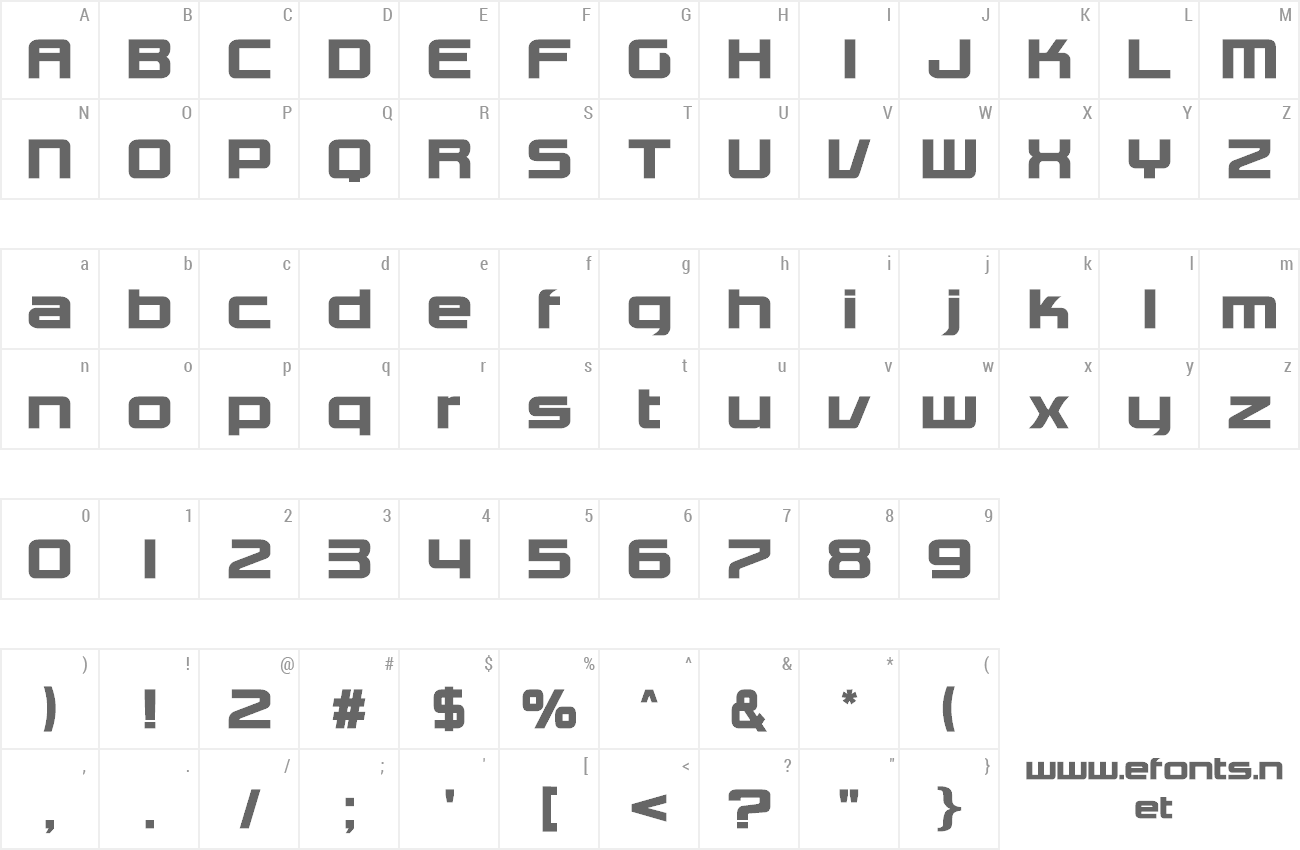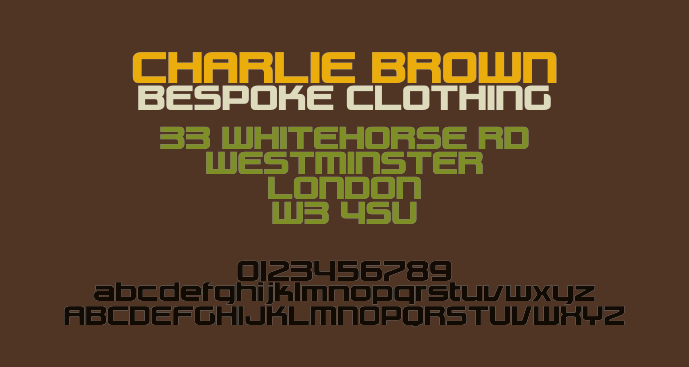
Preview and download Charlie Brown M54 Font. Created by justme54s in Techno Various styles with Free for personal use license.
Just a bold modern font I created, think I was inspired by the Namco logo art typeface. Good for titling or logo creation, better in bigger point sizes. If you find this font useful then please consider a donation to justme54s[at]yahoo.co.uk, any amount will be greatly appreciated. A donation isn't necessary to use this font for personal or non-commercial use. I'll be interested to know how people use it so a picture or artwork sent to justme54s[at]yahoo.co.uk would be nice. If you wish to use this font commercially a donation or license is required, please email for further information. Alternatively, for one time commercial use just send details of usage along with your donation so that a return email can be sent as proof of rights to commercial usage. Usage Agreement You may not host this font anywhere online as it is hosted exclusively at FontSpace.com and Dafont.com. Any links for downloads should be directed to FontSpace or Dafont. You may share the font electronically but the Zip file should remain intact with the font alongside all other files as packaged. You may not sell this font, but are allowed to distribute it freely i.e. in magazines. |